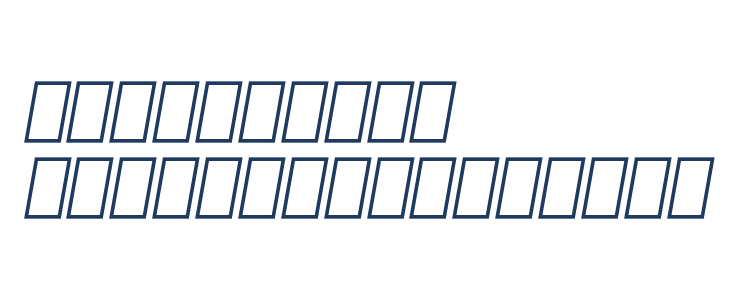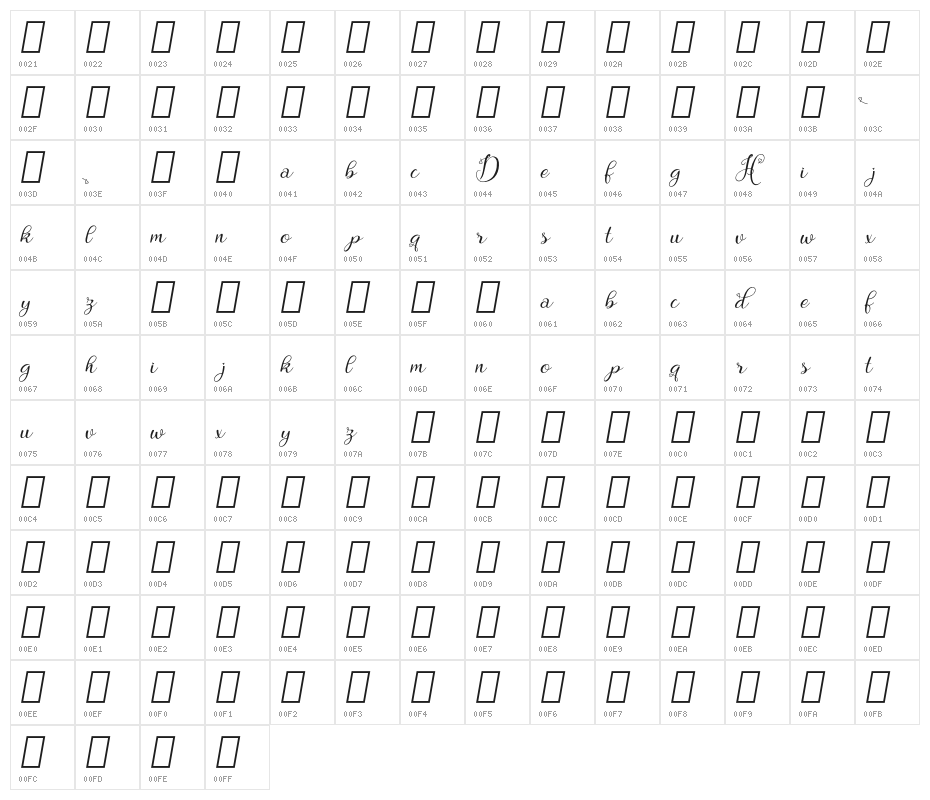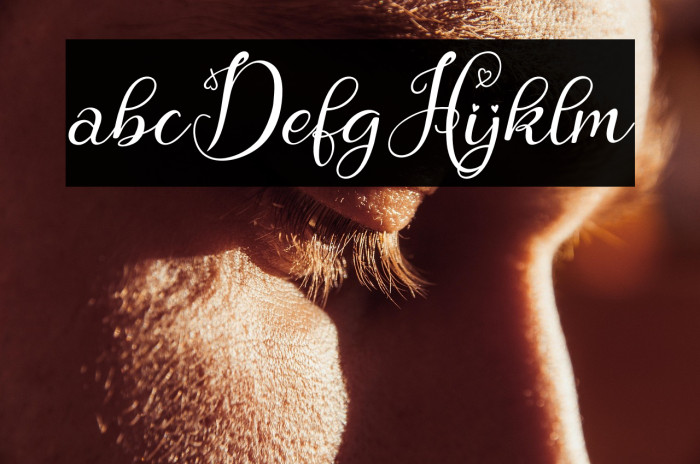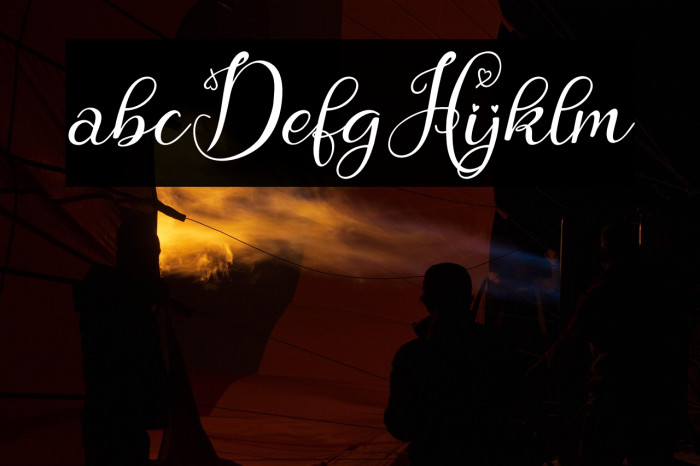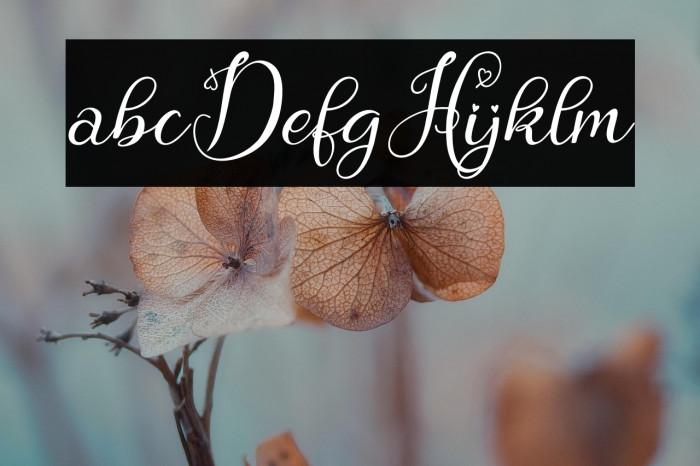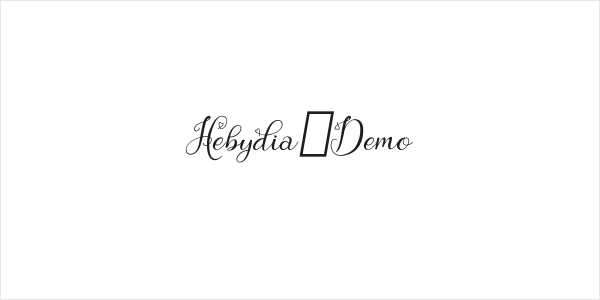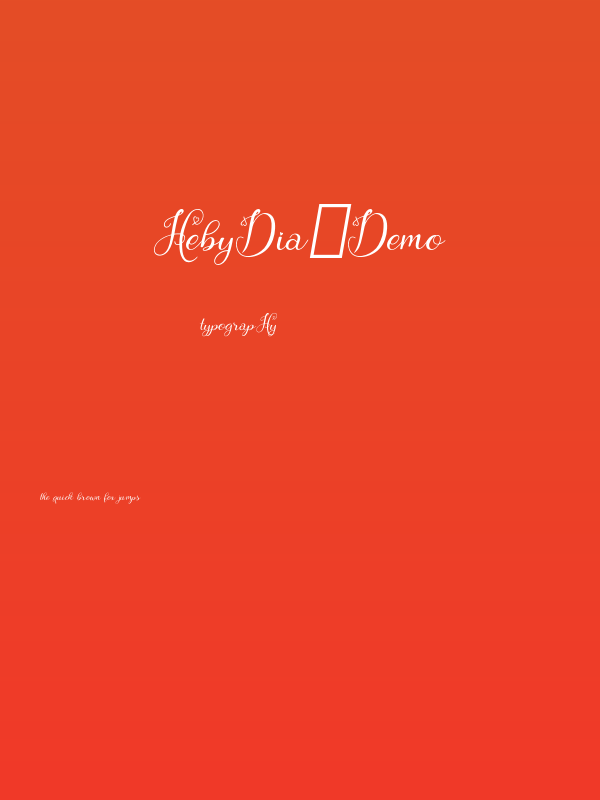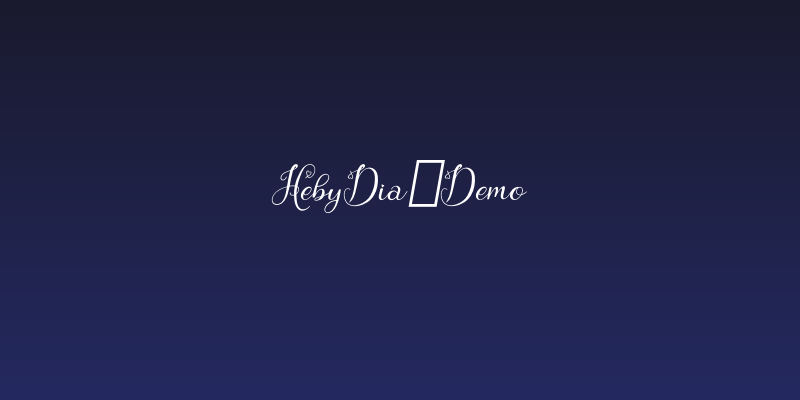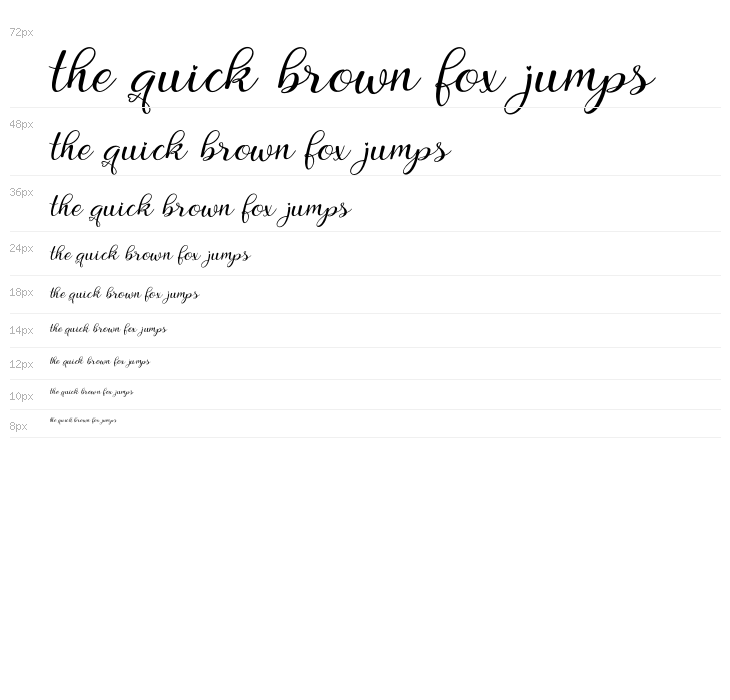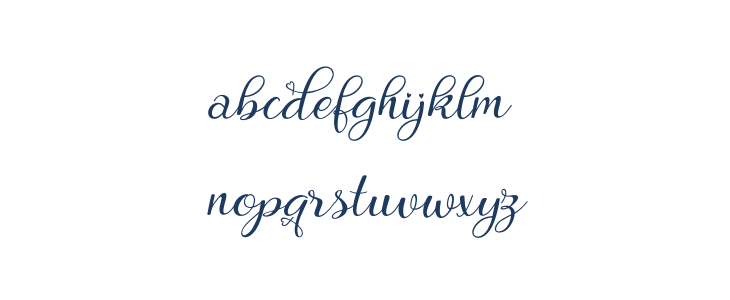
Hebydia-Demo Font
Hebydia-Demo Description
This elegant script font features a flowing, cursive style with intricate loops and swashes that give it a romantic and sophisticated appearance. The uppercase letters are particularly ornate, with decorative flourishes that add a touch of whimsy and elegance. The lowercase letters maintain a consistent flow, enhancing readability while retaining the font's artistic flair. The font is well-suited for creative projects that require a personal touch, such as invitations, greeting cards, and branding materials. Its delicate strokes and balanced proportions make it ideal for conveying elegance and charm.
| Overall Style | Elegant, Romantic |
| Use Case | Invitations, Greeting cards, Branding |
| Proposed Projects | Ideal for wedding invitations, greeting cards, branding, and elegant packaging. |